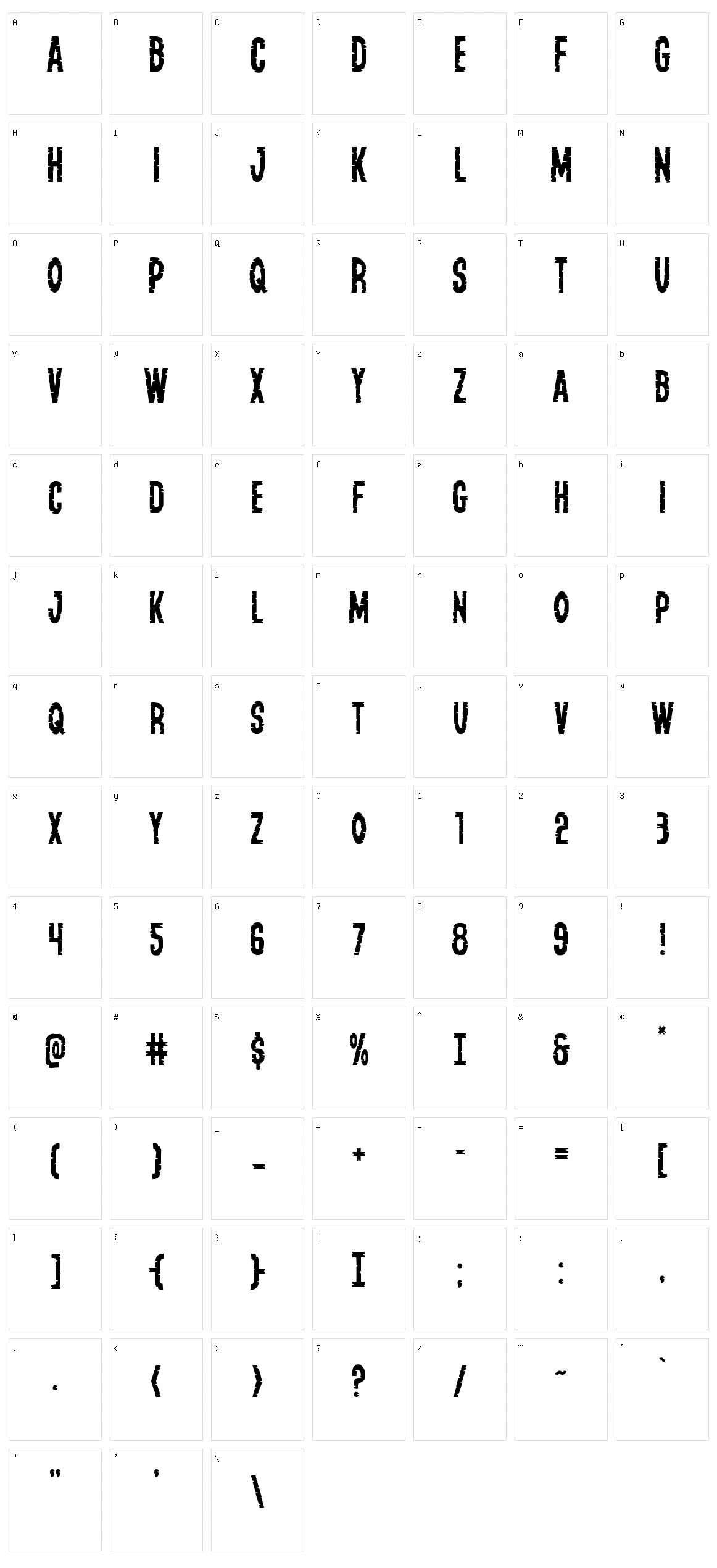
The free font Yummy Mummy is carefully designed by Iconian Fonts, showcasing a thoughtful balance of creativity and usability and falls under the Distorted font style. When you download the ZIP file, it contains only 865.61 KB of font files, making it lightweight and quick to download. Please review the license details below to understand permitted usage and distribution rights. If license information is not available, we recommend using this font for personal projects only or contacting the author directly for commercial usage permissions.
This font comes with the following 17 versions: Regular, Italic, Condensed, Condensed Italic, Expanded, Expanded Italic, Extra-Expanded, Extra-Expanded Italic, 3D, 3D Italic, Academy, Academy Italic, Staggered, Staggered Italic, Rotated, Rotalic and Leftalic.